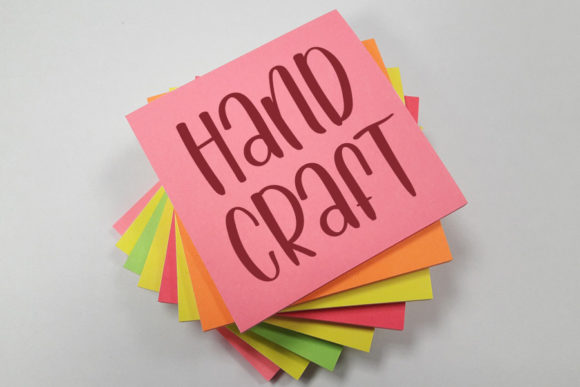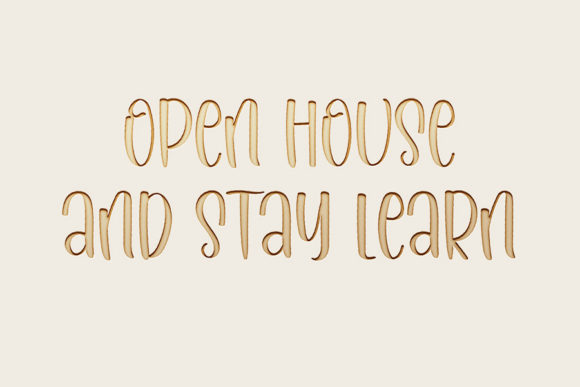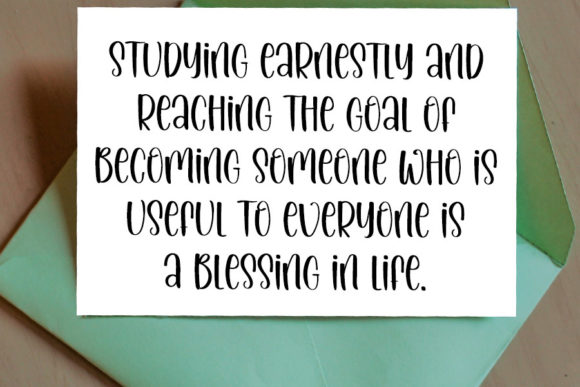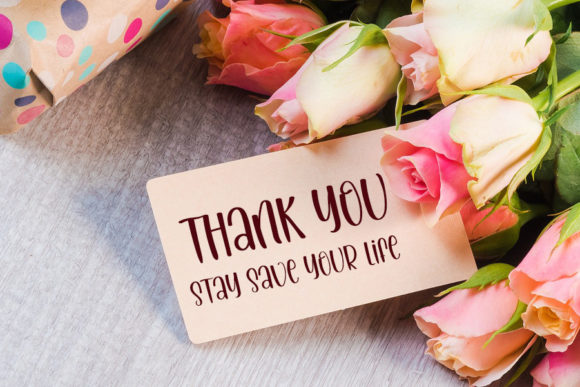
Schools Mixs Font
About Schools Mixs Font
Schools Mixs is a playful and smart looking handwritten font. It is the best choice for creating eye catching logos, branding and quotes. Every letter has a unique and beautiful touch, which will make your design come alive!